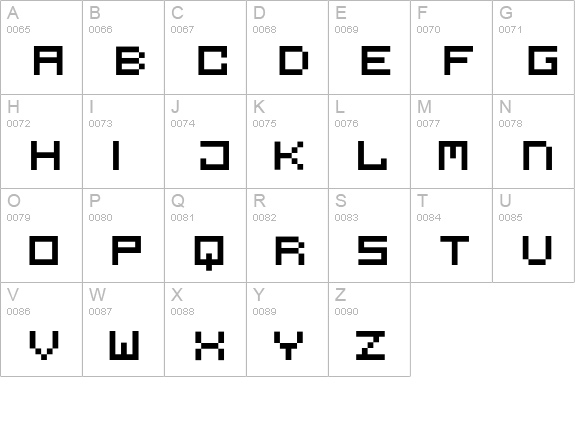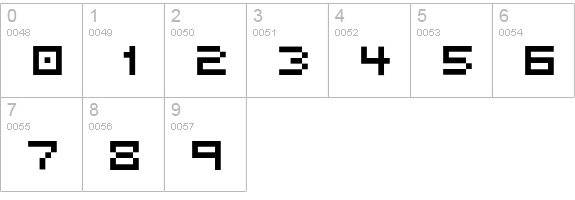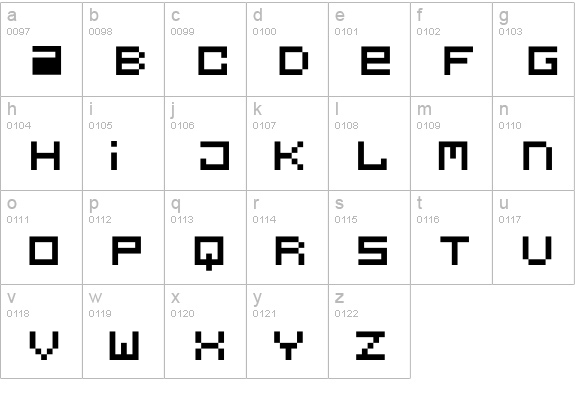
Pxl-Regular is the standard, neutral variant in the Pxl typeface family \xE2\x80\x94 well suited to general body text, paragraphs, and standard typographic work.
Pxl-Regular font is a modern and versatile typeface that combines sleek lines with a clean and contemporary design. Its crisp and legible characters make it perfect for a wide range of design projects, from branding to web design. This font exudes a sense of professionalism and sophistication, making it a great choice for both digital and print applications. The best part? Pxl-Regular font is available for free download at FontsMarket.com. This means you can easily access this high-quality font without breaking the bank. Whether you're a designer looking to add a fresh touch to your projects or a business in need of a polished look for your brand, Pxl-Regular font is a fantastic choice that won't cost you a penny. Download it today and elevate your designs with this elegant and stylish typeface.